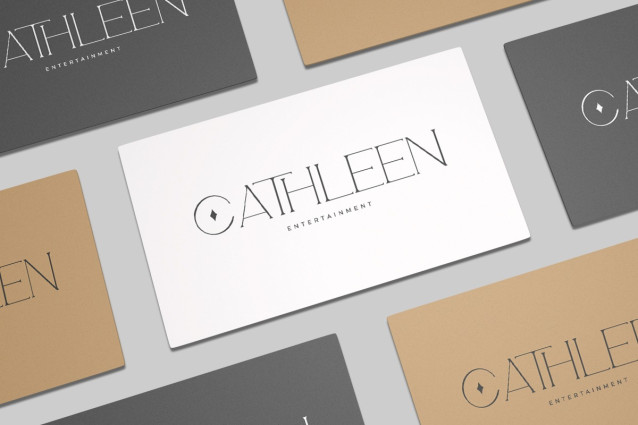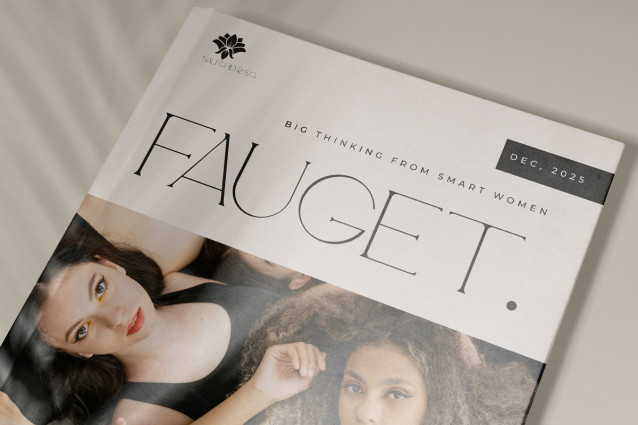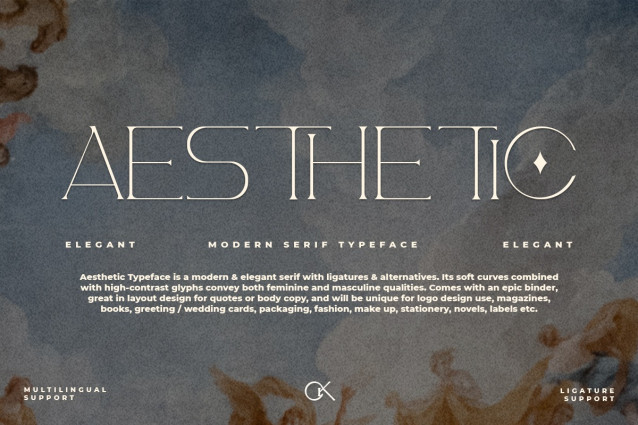
Aesthetic – Modern Serif Font
Aesthetic Modern Serif Font provides a new look different from the general serif fonts. The characteristics of a serif font with additional lines in some parts of the letters are still visible, but the lines look very small. Aesthetic font has a long and thin letter shape. The font belongs to modern fonts and elegant fonts. Its simple style looks charming to the eye. It can be used as a digital font as well as a print font. Aesthetic Modern Serif Font has many matches when combined with the product to be used. This typeface is the best font applied to fashion magazine covers, books, greeting/wedding cards, packaging, and novels. Aesthetic fonts are also great for use as product labels, such as fashion and makeup. There is no need to add excessive pictures and ornaments because the Aesthetic font has presented its own identity where a simple yet elegant impression radiates. Aesthetic font is a typeface for a movie poster font in a cinema or a show in a building. Aesthetic font is an aesthetic font that can be used as an Instagram font which can later be used when making Instagram stories. Business cards can use this font because even though the aesthetic font is a serif typeface, each letter looked clear and distinguished. In other words, this font is legible. Apart from that, the Aesthetic font is one of the best fonts that can be used as a logo. Our Serif fonts collection is compatible for use as Figma fonts, Canva fonts, Freepik Fonts, and Adobe Fonts. They also work as Windows Fonts, and Apple Fonts. For your social media needs, you can use and install fonts in our Serif font collection to use as Instagram Fonts, Facebook Fonts, and Twitter Fonts.